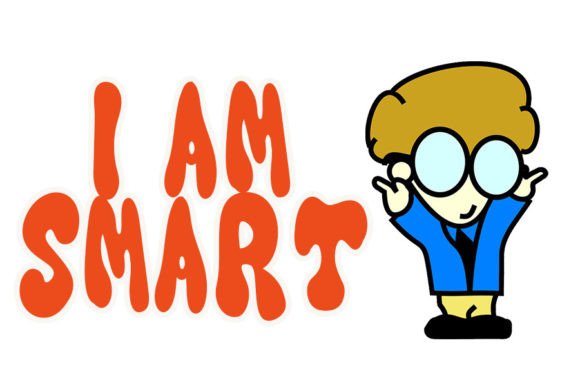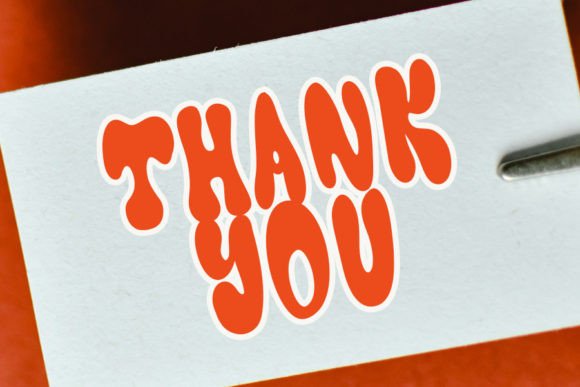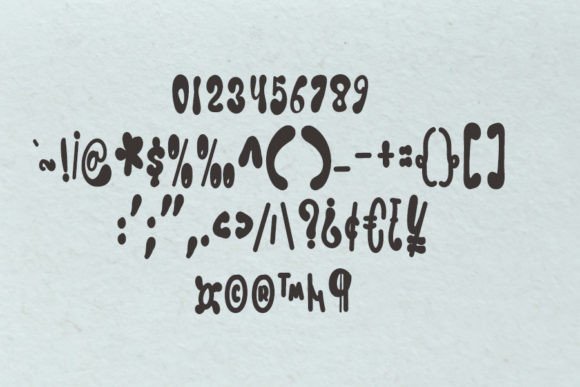
Introduction to Hopey Font
Remember that moment when you’re working on a creative project and you stumble upon the perfect design element? It’s like the whole thing comes together, and you know you’ve got something special. For designers, finding that one piece of the puzzle can be the difference between a good project and an amazing one. That’s exactly what the Hopey Font can bring to the table.
With its fun and friendly display style, Hopey Font is the perfect addition to any design project. Its retro, groovy vibe is sure to transport your audience back to a bygone era, making it an excellent choice for applications that require a high-quality, nostalgic feel. Whether you’re working on a branding project, creating a social media campaign, or designing a website, Hopey Font is a valuable design resource that’s sure to impress.
Key Features of Hopey Font
- Unique, hand-drawn design for a creative project, offering a high-quality aesthetic.
- Comes in a transparent background, allowing for easy integration into various design elements.
- Perfect for use in digital design, print materials, and web applications, thanks to its versatility and high-quality appearance.
Honest Review: Hopey Font
As a designer, I’m always on the lookout for high-quality design resources to elevate my creative projects. The Hopey Font is one such resource that caught my attention, and I’m excited to share my honest review.
What works well with the Hopey Font is its modern and playful design aesthetic. It’s perfect for a variety of creative projects, from digital graphics to print materials. The font’s open and friendly feel makes it ideal for branding and marketing materials. I especially love how it pairs well with transparent backgrounds, giving my designs a clean and minimalist look.
- ✨ High-quality design: The Hopey Font is designed with precision and attention to detail, making it a great addition to any design resource collection.
However, I do have to mention a few limitations: ⚠️ the font’s compatibility can be a bit limited, and it may not work seamlessly with all operating systems or software.
Overall, I’m impressed with the Hopey Font, and I’d definitely recommend it to fellow designers. Its modern design aesthetic and high-quality feel make it a valuable addition to any design resource collection. Just be aware of its limitations, and you’ll be good to go!
Common Use Cases for Hopey Font
Hopey Font is ideal for a variety of design projects, including social media graphics, business cards, and presentations. Its high-quality design and transparent background make it easy to use in a range of creative applications.